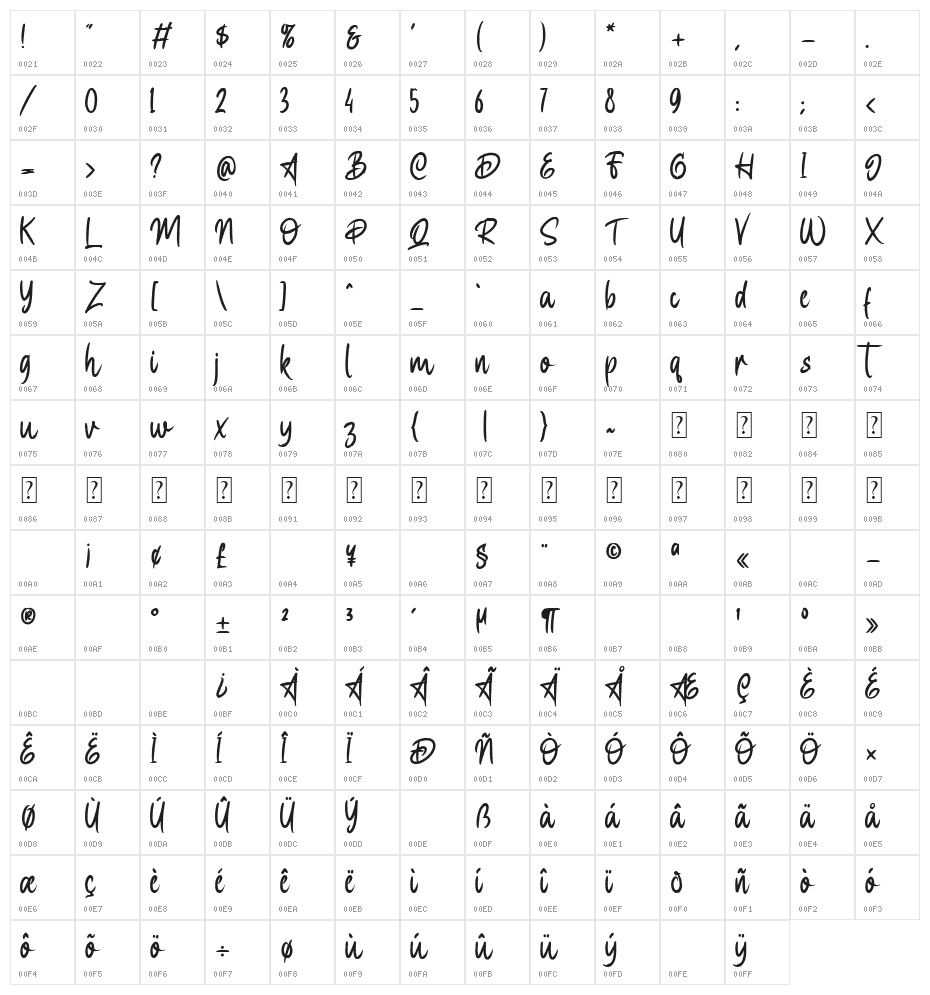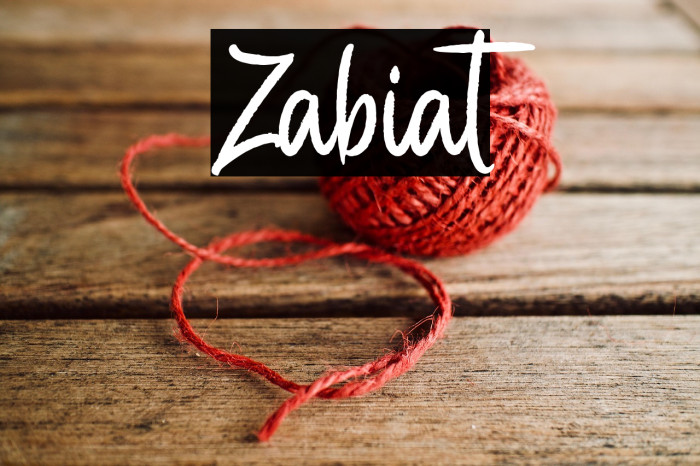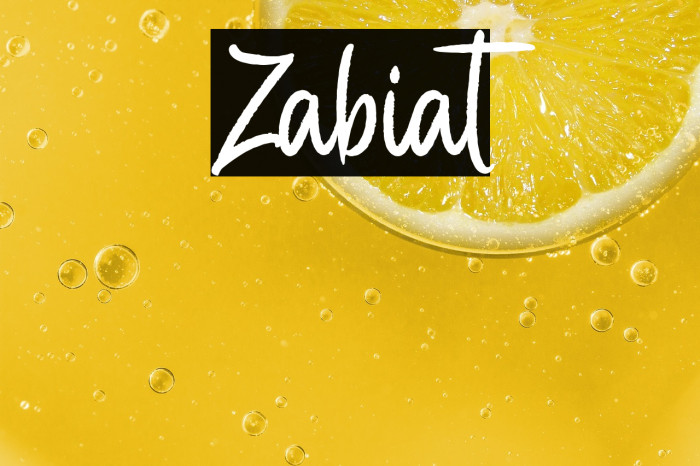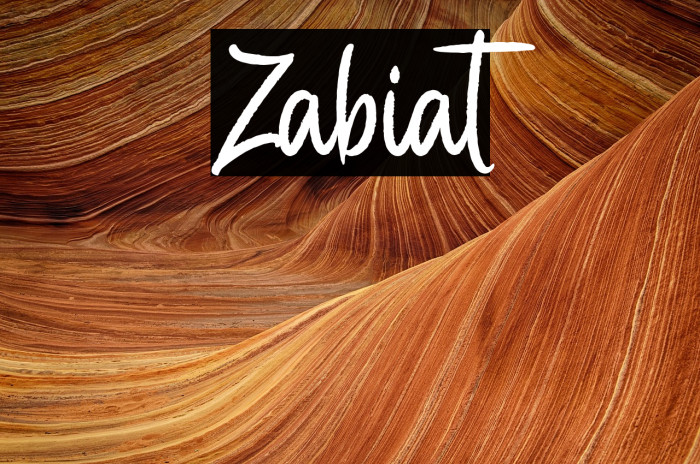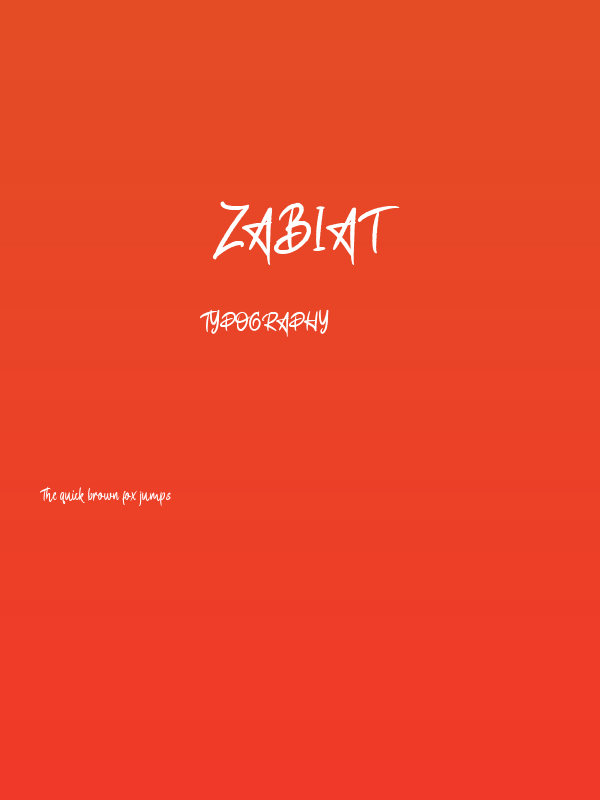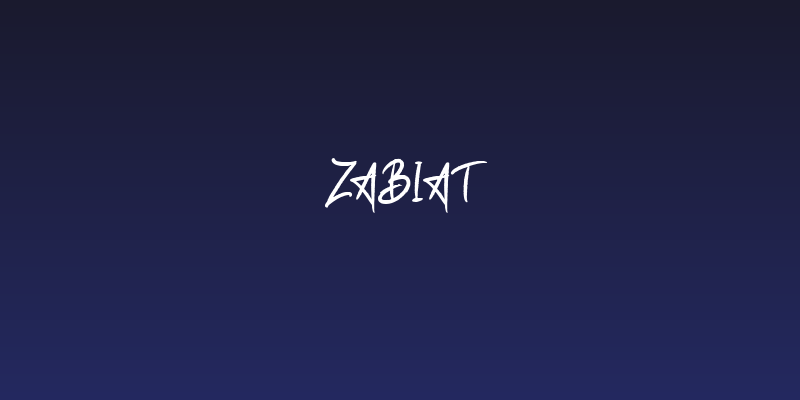
Zabiat Font
Zabiat Description
This font features a dynamic and energetic handwritten style, characterized by its fluid strokes and playful curves. The uppercase letters exhibit a bold presence with slightly exaggerated flourishes, while the lowercase letters maintain a consistent flow that complements the overall aesthetic. Numbers and special characters are crafted with the same lively spirit, ensuring a cohesive look across all elements. The font's informal yet stylish appearance makes it suitable for projects that require a personal touch.
| Proposed Projects | Ideal for greeting cards, invitations, branding, and social media graphics where a personal and informal touch is desired. |